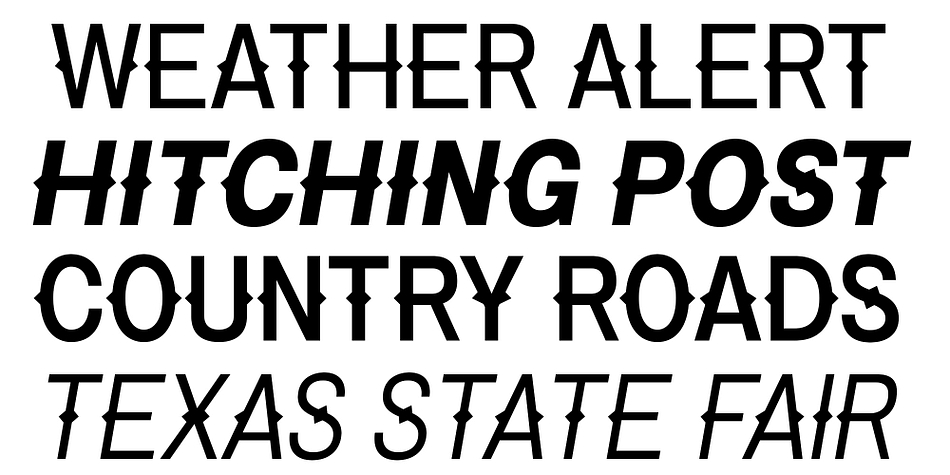
Pitmaster
Designed by Michael Hagemann, Pitmaster is a display sans font family. This typeface has sixteen styles and was published by FontMesa.
Pitmaster was designed with summertime barbecue in mind, with its straight pointed spurs Pitmaster is sure to get attention for any project western and BBQ related.
Included in Pitmaster are a few alternates such as a half slab “A” and slab serif “I”, also you’ll find alternate “O, o” with spurs removed on one side or the other, this is useful when typing two O’s together, you’ll have the option of selecting one or both O’s with the spurs removed between them for a closer fit on the letters.
There’s also alternate “D” with the right spur removed for a tighter fit with other letters if needed.
Opentype case sensitive forms are also available.